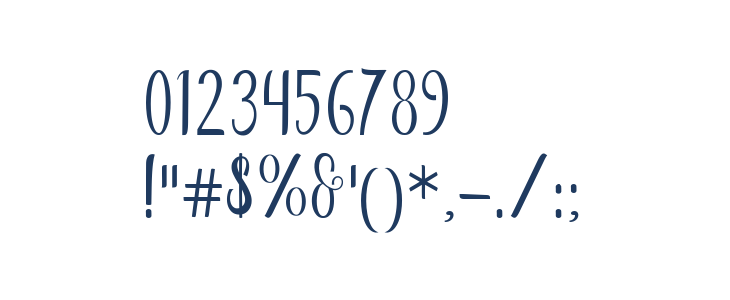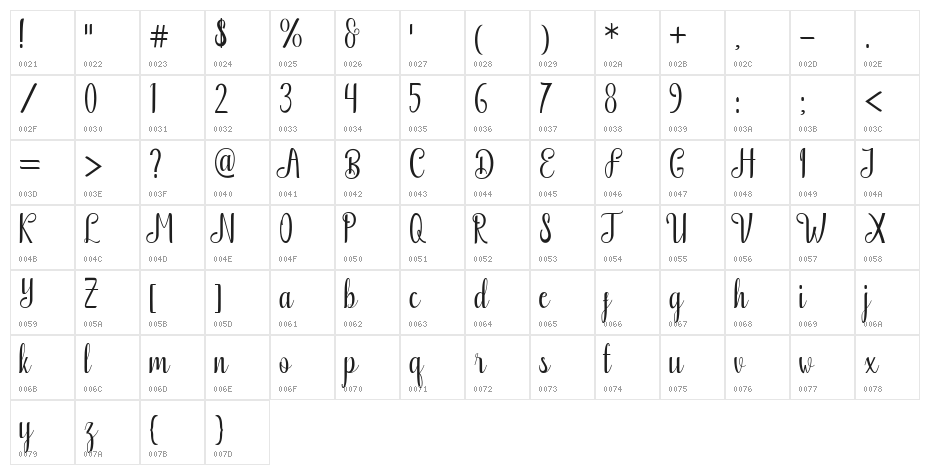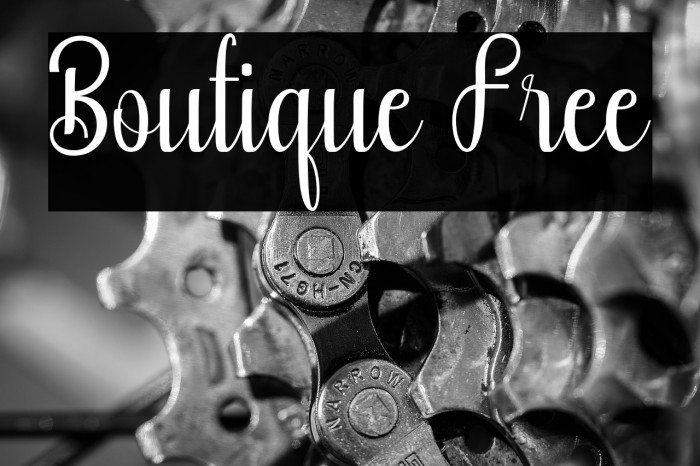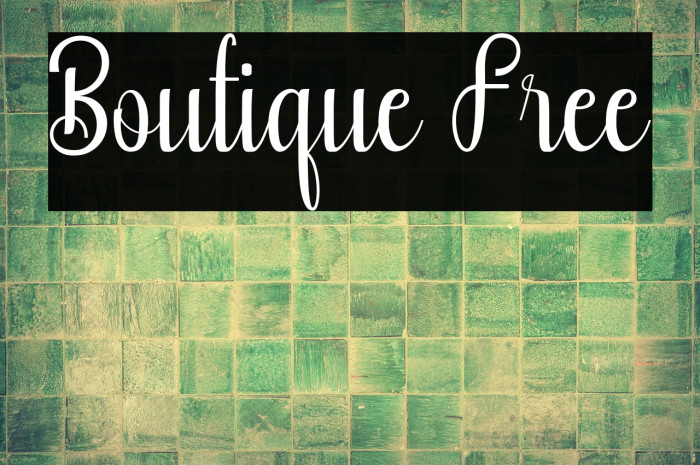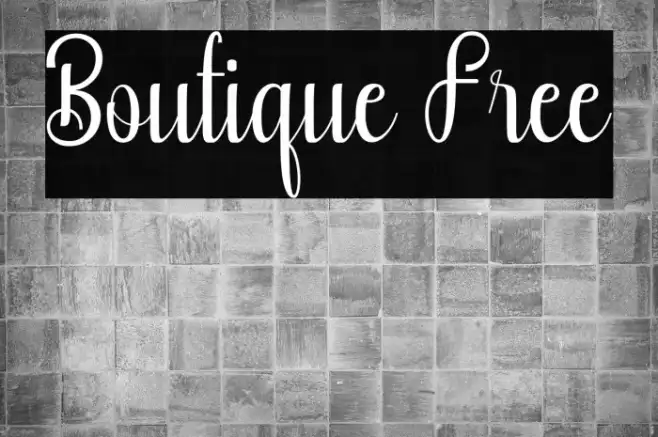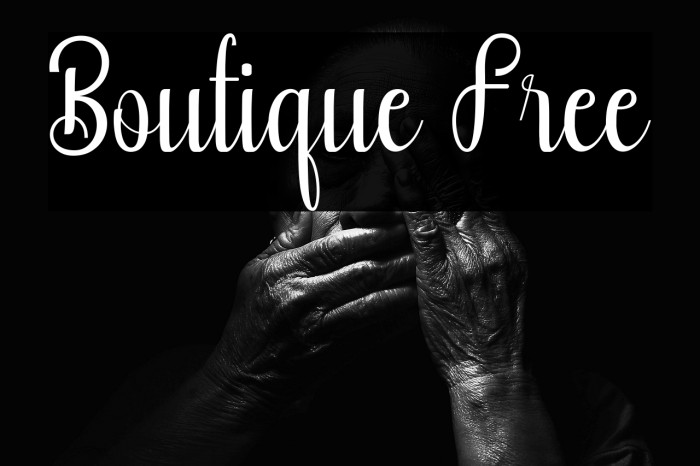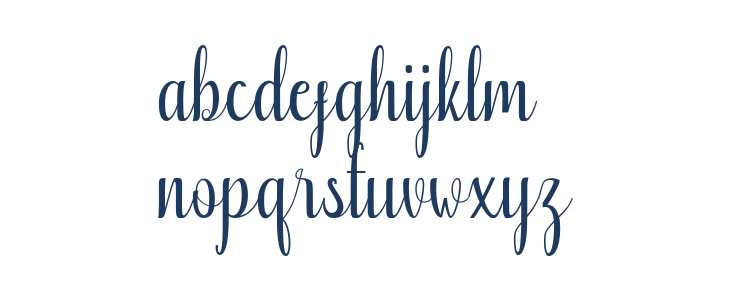
Boutique Free Font
Boutique Free Description
This font features a stylish and elegant script design, characterized by its flowing and interconnected letterforms. The uppercase letters exhibit a graceful flair with subtle loops and curves, while the lowercase letters maintain a consistent rhythm and fluidity. The numerals are distinct and easy to read, complementing the overall aesthetic. Special characters are thoughtfully integrated, enhancing the font's versatility. The design strikes a balance between sophistication and readability, making it suitable for a variety of creative applications.
| Proposed Projects | Ideal for wedding invitations, branding, logo design, and elegant stationery. |